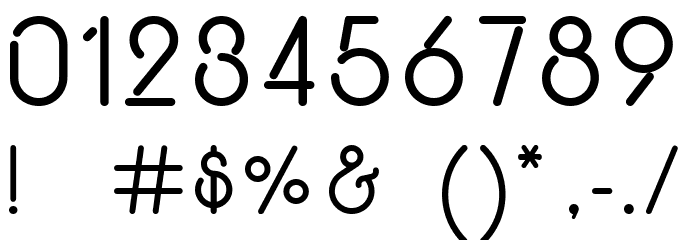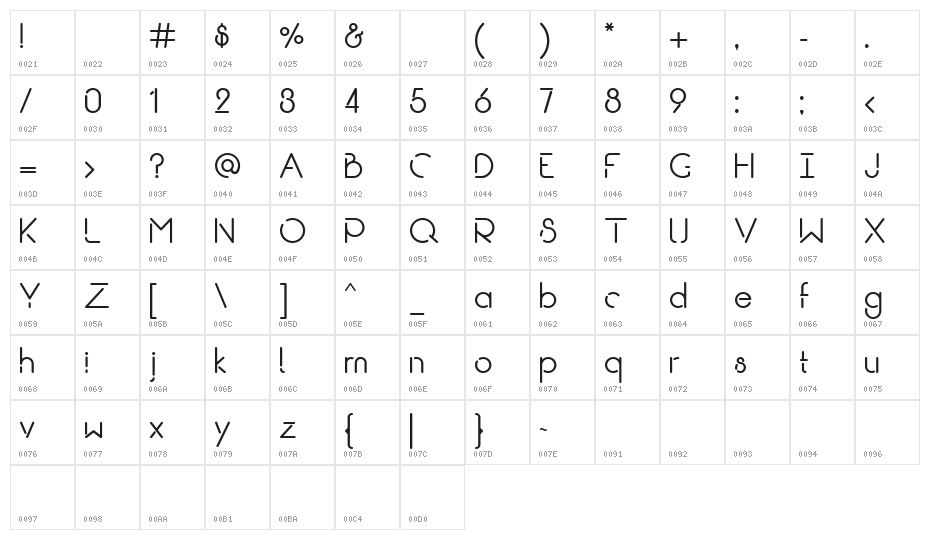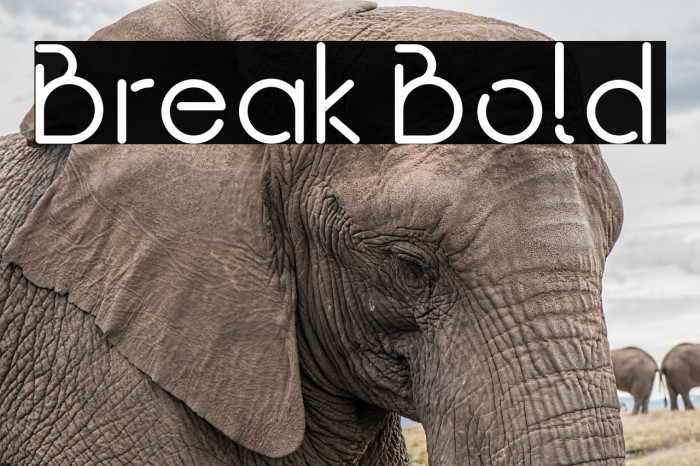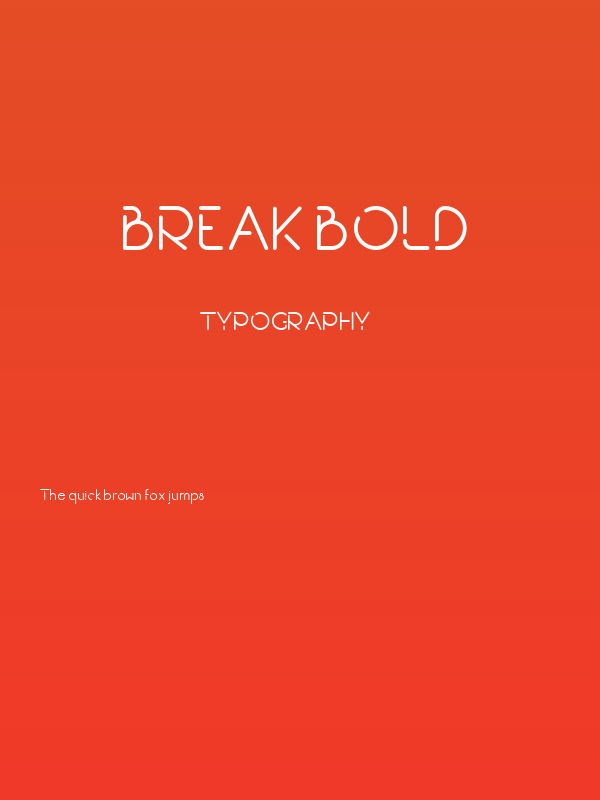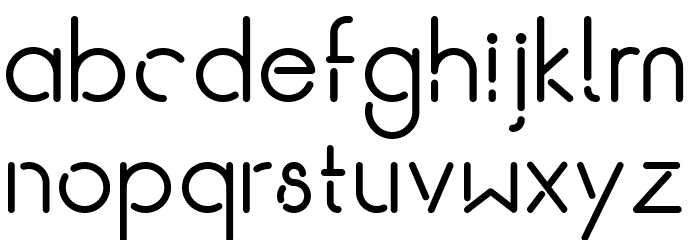
Break Bold Font
Break Bold Description
This font features a modern, geometric design with clean lines and a distinct, futuristic aesthetic. The characters are constructed with a combination of straight lines and rounded edges, creating a unique and engaging visual appeal. The uppercase letters are bold and striking, while the lowercase letters maintain a consistent style with slightly softer curves. Numbers and special characters are designed to match the overall geometric theme, ensuring a cohesive look across all text. The font's style is both contemporary and versatile, making it suitable for a variety of design applications.
| Use Case | Headlines, Logos, Digital Interfaces |
| Proposed Projects | Ideal for tech branding, modern advertising, digital interfaces, and innovative product packaging. |